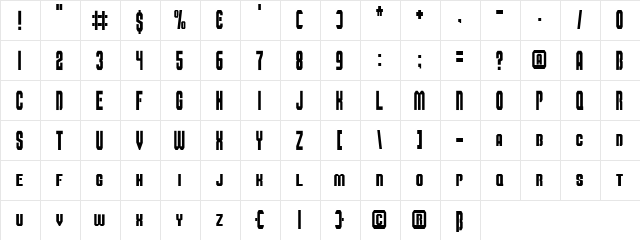
Super Mario Bros Alphabet Super Mario Bros Alphabet
Design Context for Super Mario Bros Alphabet Typeface
Super Mario Bros Alphabet offers clean, dependable letterforms without strong stylistic allegiance, making it a practical choice for designers who need flexibility.